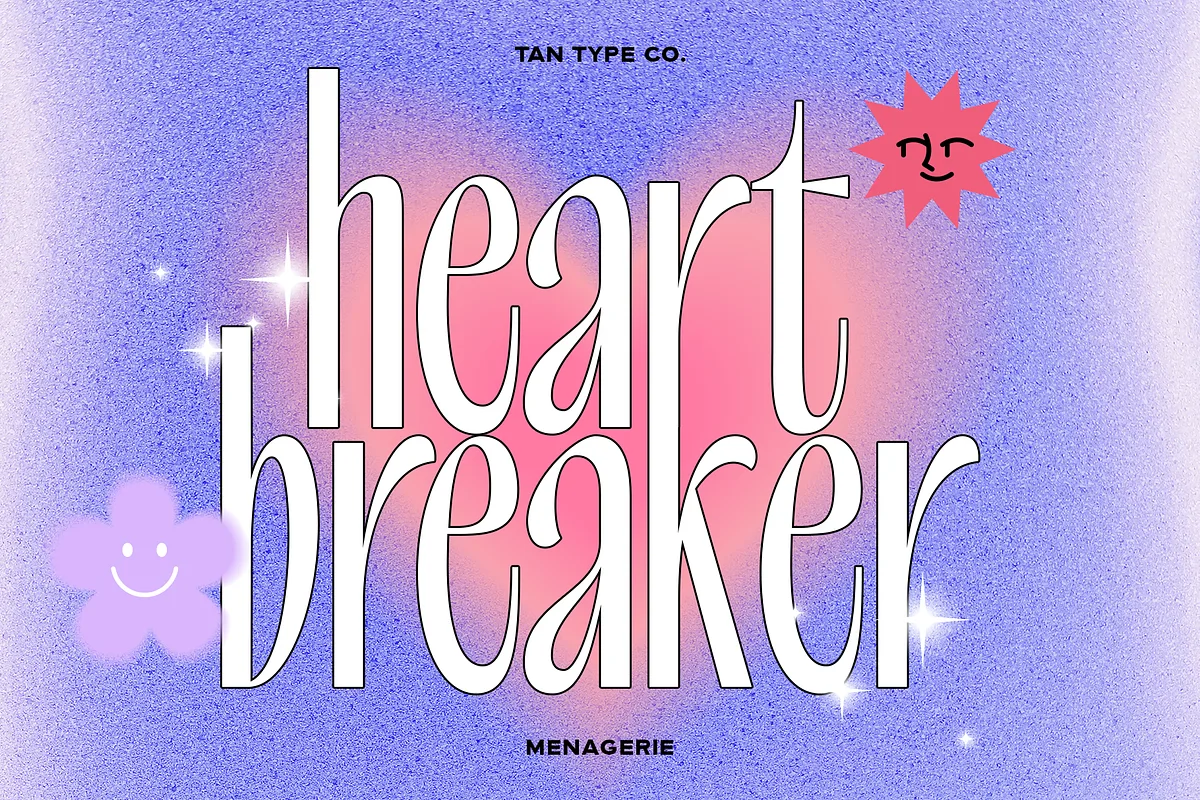
TAN-MENAGERIE is a modern sans serif font with a sleek, clean, and minimalist vibe. Drawing inspiration from the bold, geometric shapes of Art Deco, it has a stylish and sophisticated feel, while still keeping things simple and fresh.
Perfect for everything from eye-catching headlines to clean, modern branding, TAN-MENAGERIE adds a cool, timeless touch to any project.